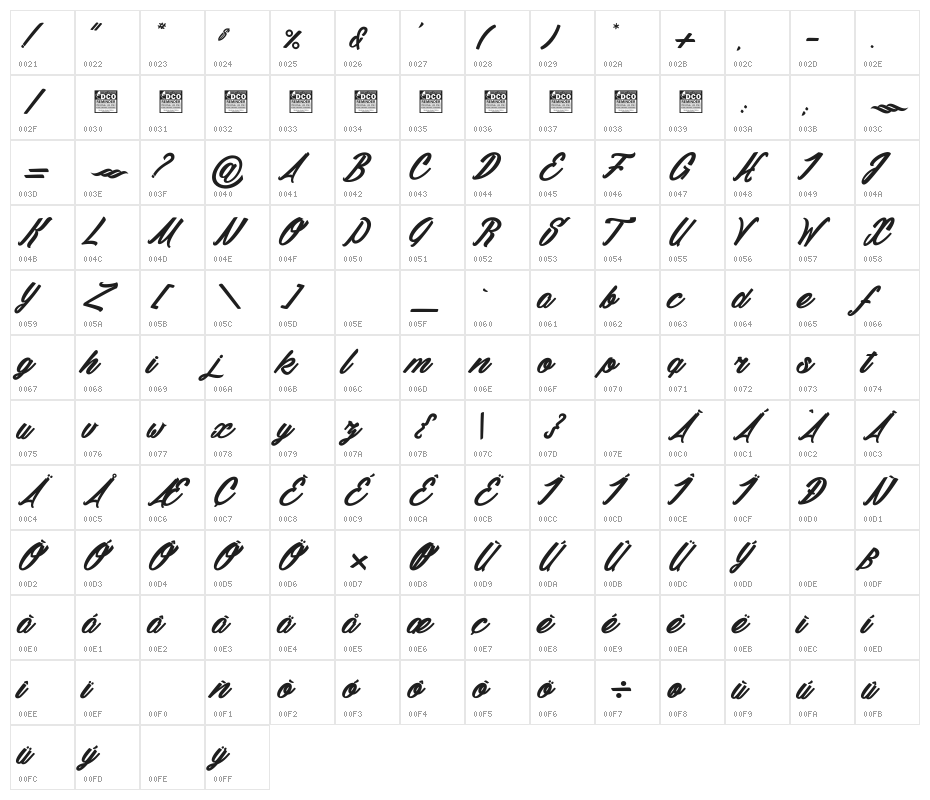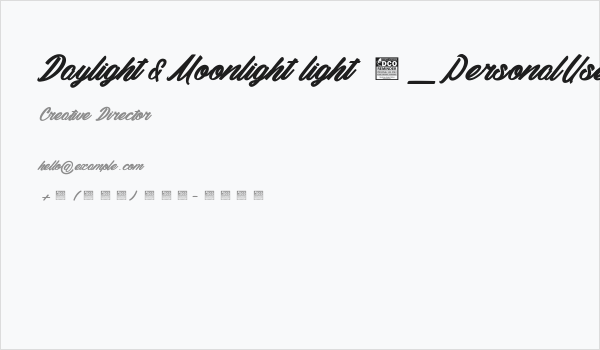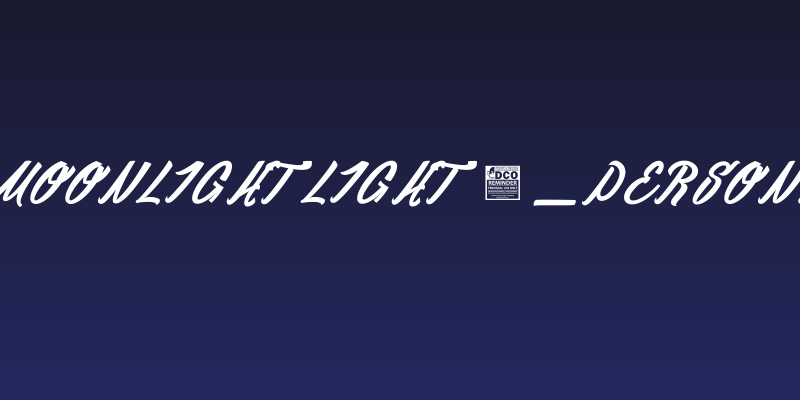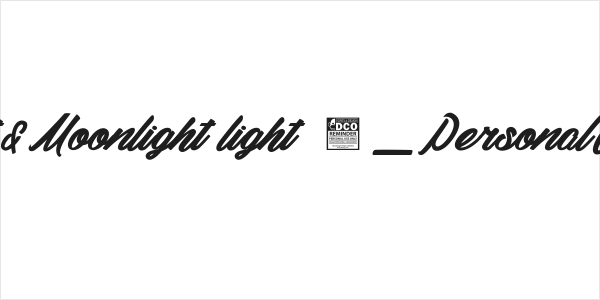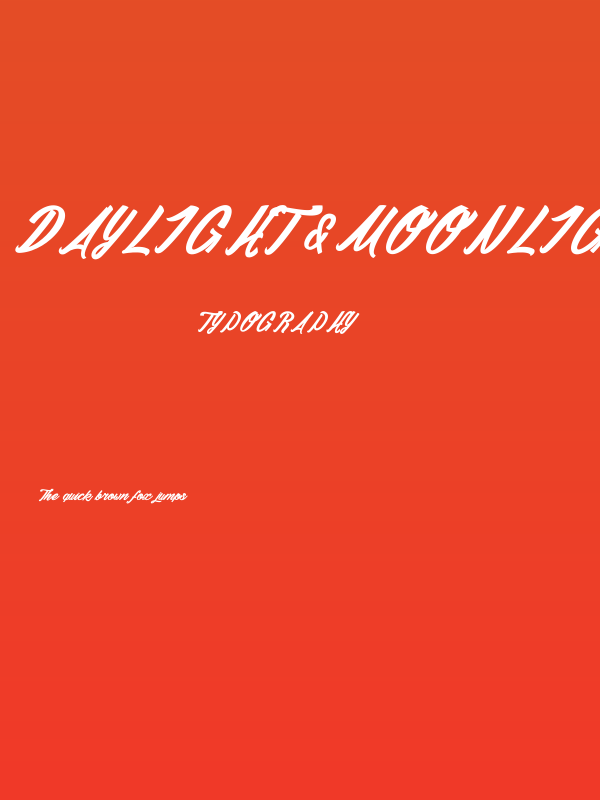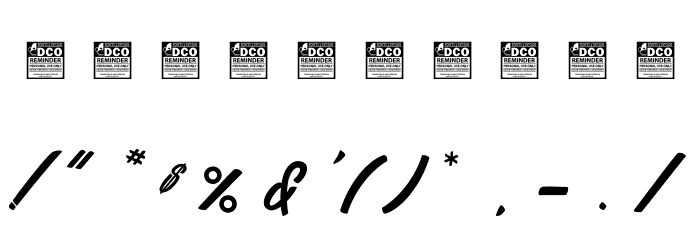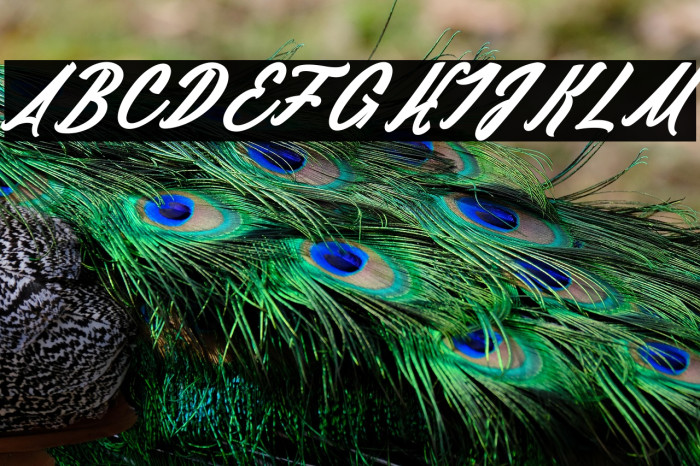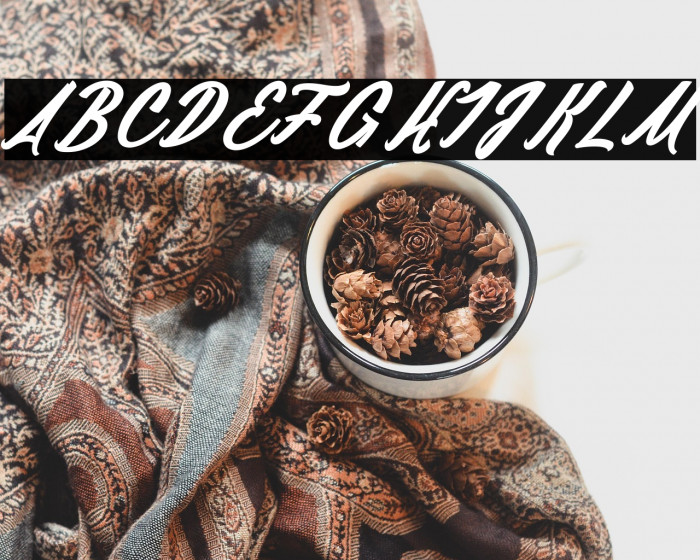
Daylight&Moonlight light 2_PersonalUseOnly Font
Daylight&Moonlight light 2_PersonalUseOnly Description
This font features a bold and dynamic script style with a flowing, cursive appearance. The letters are connected, creating a sense of continuity and movement. The uppercase letters are slightly more angular, while the lowercase letters maintain a smooth and rounded form. The font exudes a sense of elegance and sophistication, making it suitable for creative and expressive designs. The characters are well-spaced, ensuring readability despite the intricate design. The special characters complement the overall style, maintaining the same fluidity and boldness.
| Proposed Projects | Ideal for wedding invitations, branding, logos, and artistic projects requiring a touch of elegance and flair. |